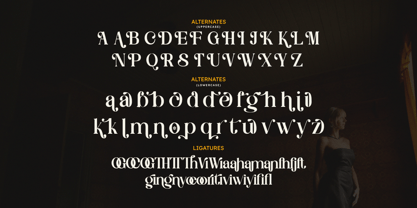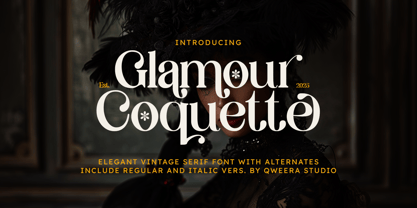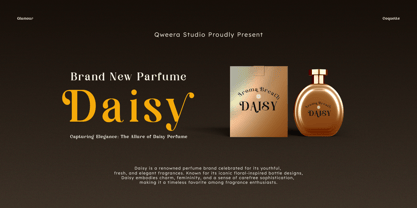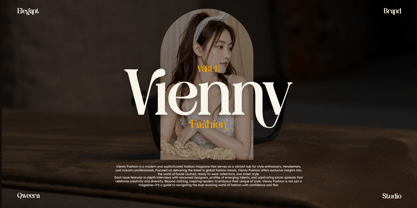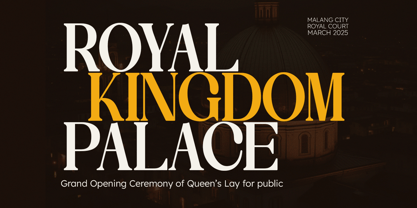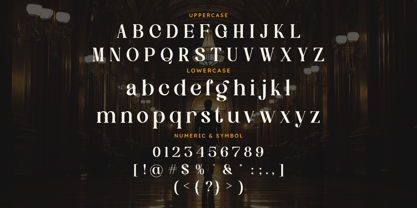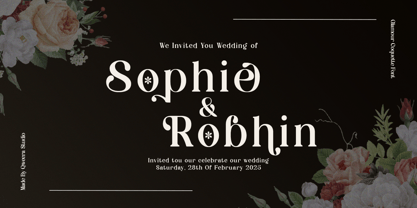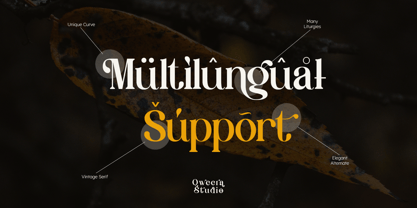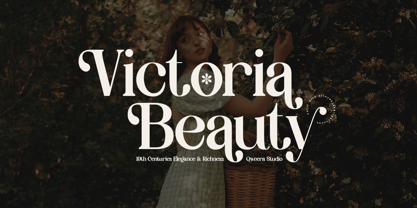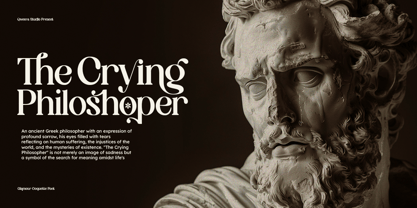
Glamour Coquette
Glamour Coquette – Elegant Vintage Serif Font
Introducing Glamour Coquette, a sophisticated elegant vintage serif font that blends classic charm with modern refinement. Designed with alternates and ligatures, this typeface offers flexibility for crafting high-end branding, editorial layouts, and luxurious print designs. Whether for posters, magazines, logos, or invitations, Glamour Coquette elevates your visuals with timeless beauty and graceful typography. Its ornate yet readable style makes it ideal for designers seeking a font with elegance, versatility, and premium aesthetics. Perfect for branding, luxury packaging, and classic-themed designs, this serif font exudes sophistication and artistic finesse.
• Regular & Italic
• All Multilingual symbol
• Opentype features ( ligature, alternate )
Multilingual character supports : (Afrikaans, Albanian, Catalan, Croatian, Czech, Danish, Dutch, English, Estonian, Finnish, French, German, Hungarian, Icelandic, Italian, Lithuanian, Maltese, Norwegian, Polish, Portuguese, Slovenian, Spanish, Swedish, Turkish, Zulu)